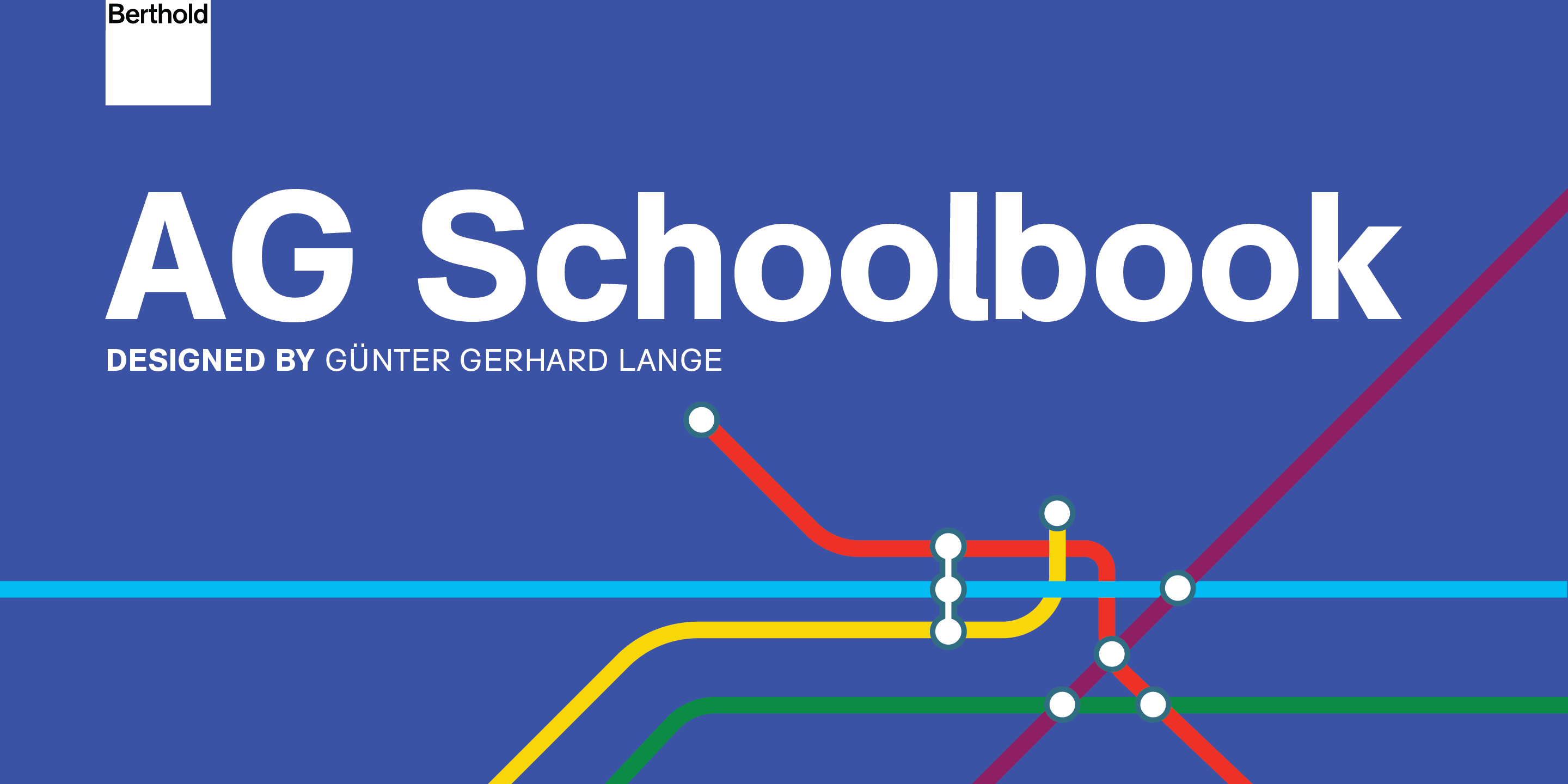
The AG Schoolbook Font is an excellent choice for projects that demand a clear, legible, and traditionally styled aesthetic, specifically designed for educational materials and easy readability. It's perfectly suited for children's books, textbooks, learning aids, classroom worksheets, early reader publications, and any design that requires a straightforward, friendly, and highly approachable typeface. Its consistent and uncluttered character makes it ideal for conveying a sense of simplicity, clarity, and foundational learning.
What makes AG Schoolbook Font so exciting is its meticulous design aimed at optimizing readability, particularly for developing readers. It features open, uncomplicated letterforms with consistent spacing, often mirroring the foundational letter shapes taught in schools. This font isn't just about displaying information; it's about making learning a comfortable and accessible experience. It excels at delivering text with utmost clarity, reducing visual clutter and making it easier for young eyes and minds to process. Its unadorned structure provides a crisp, reliable presence that is highly impactful in educational contexts. The "AG Schoolbook Font Free Download" also makes it accessible for test projects.
The AG Schoolbook Font family typically focuses on variations that enhance its core functional and educational nature. You will generally find a strong regular style that embodies its signature clear aesthetic. Given its specific design purpose, extensive weight variations are less common, but some versions might offer subtle bold weights for emphasis, or specialized sets for numerals and punctuation that align with educational standards. The emphasis is on providing a consistent yet highly readable visual identity that resonates with its instructional inspirations.
Whether you're developing educational software, designing engaging classroom materials, or crafting publications for young learners, the AG Schoolbook Font Free Download offers an indispensable tool. Its clear readability and robust, practical appeal make it a premier choice for any project that requires a typeface of unquestionable clarity and educational excellence.